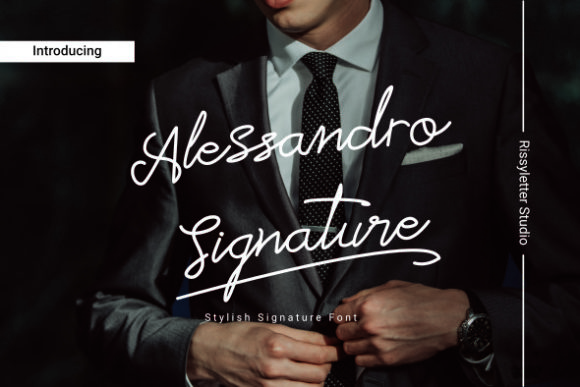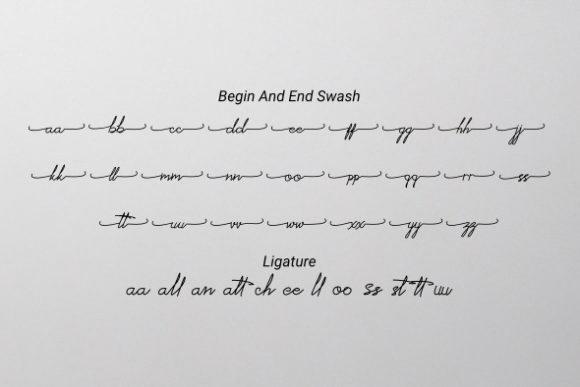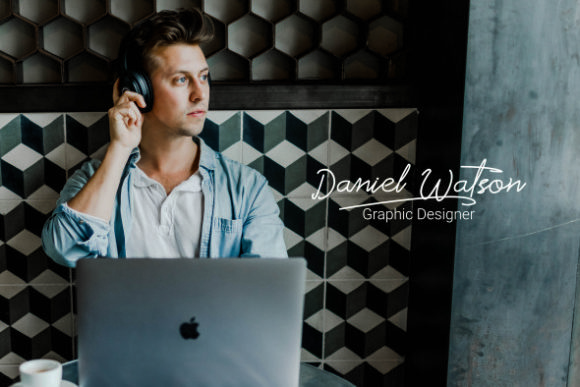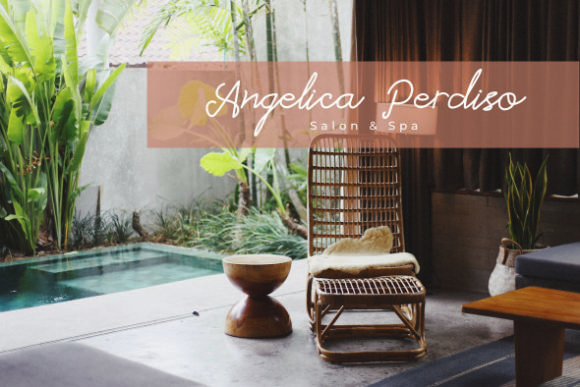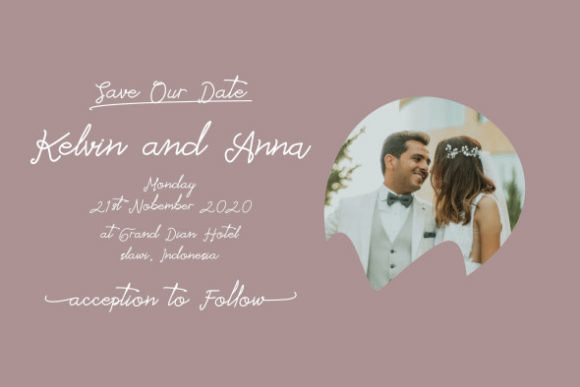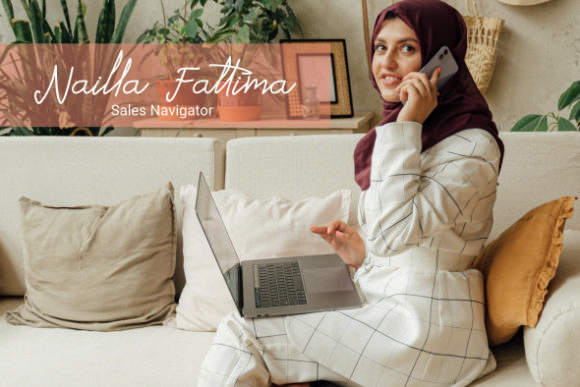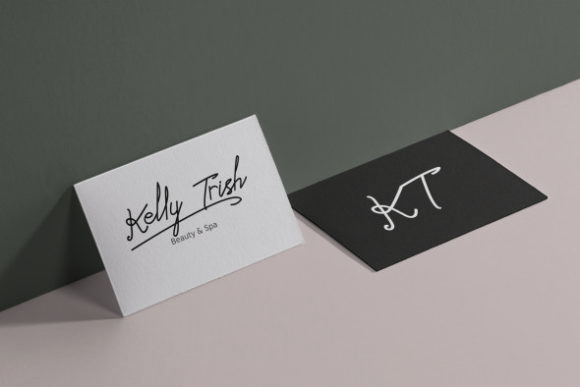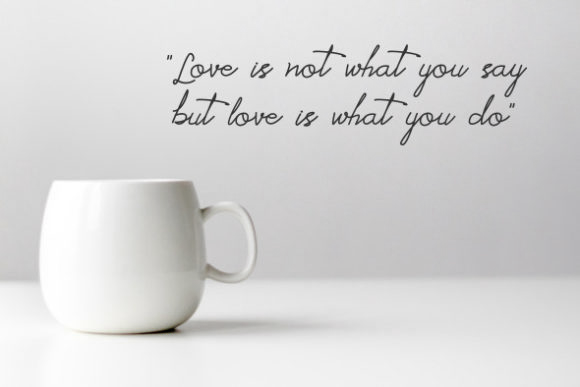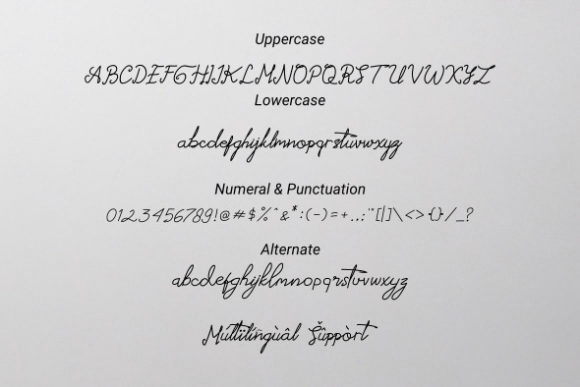
Alessandro Signature Font
About Alessandro Signature Font
Alessandro Signature is a delicate and elegant handwritten font. Its distinct and well rounded letters make this font a masterpiece. Fall in love with its incredibly versatile style and use it to create spectacular designs!